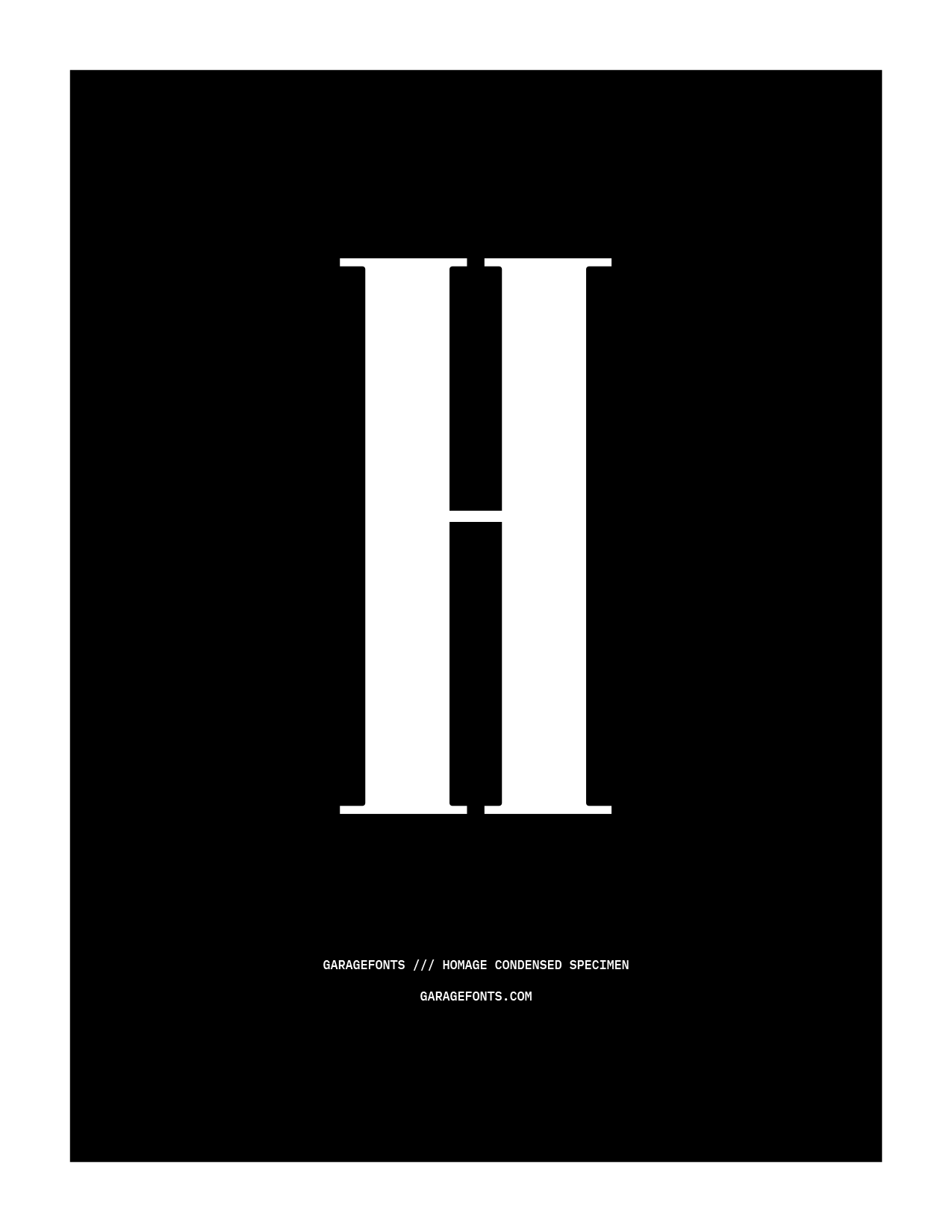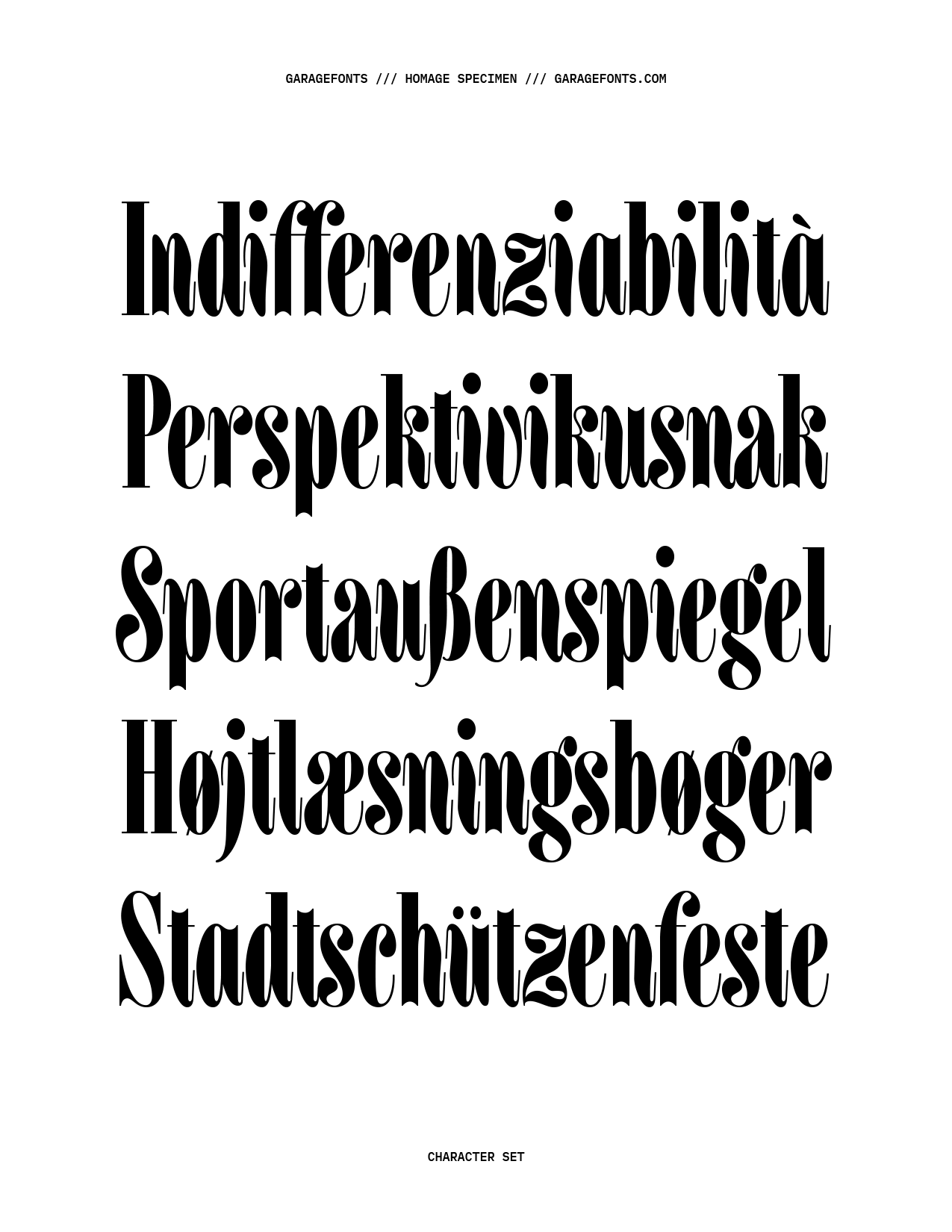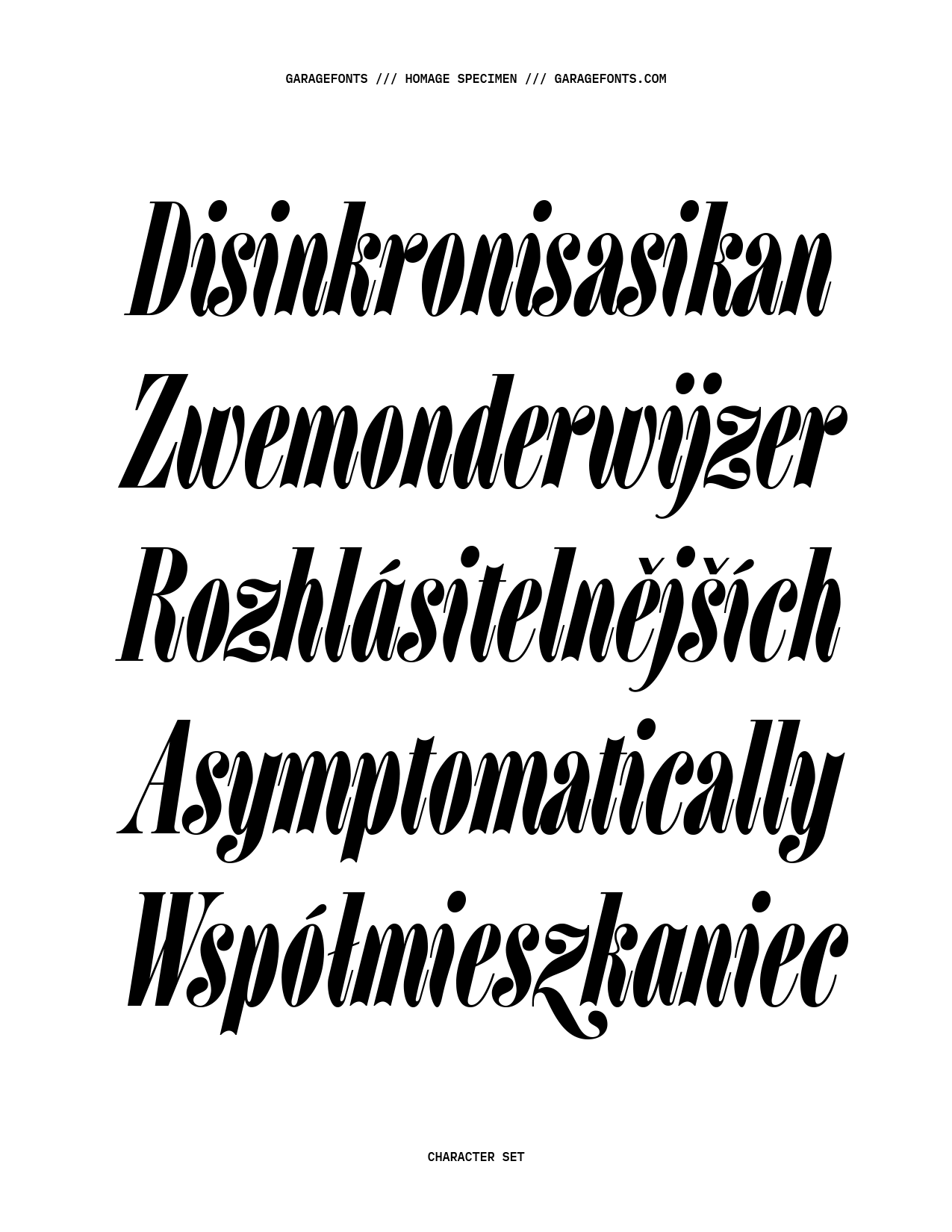
Homage Condensed
Paying homage to the 1960s and 1970s designs of Tom Carnase and Herb Lubalin, Homage Condensed is a digital revival and recutting of LSC Condensed in two weights along with italics and numerous stylistic alternate characters.
Designer: Steve Jackaman